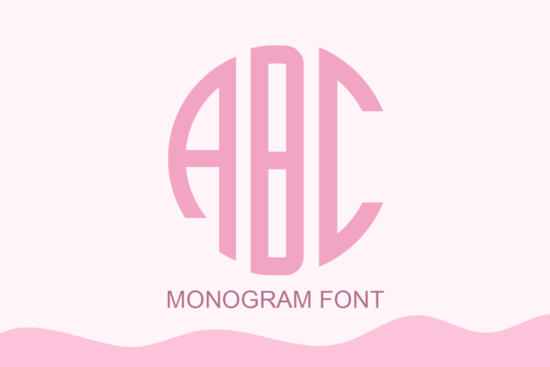
Looking for a monogram font that works across different crafting and design projects? The Monogram font from Creative Fabrica is a display typeface built specifically for projects where personalization matters think t-shirts, logos, labels, stickers, embroidery, and vinyl work. It has a clean, stylish look that makes initials and short text stand out without feeling overdone.
Whether you sell on Etsy, run a small print-on-demand shop, or just enjoy crafting at home, this font gives you flexibility for a wide range of creative needs.
What Makes This Monogram Font Work for Crafters?
The design behind this font focuses on readability and visual appeal at display sizes. Monogram letters need to feel balanced and intentional not cramped or overly decorative. This typeface nails that middle ground. The letterforms are bold enough to hold up on physical products like embroidery patches, vinyl decals, and custom jewelry, while still looking polished on digital designs.
A few things that stand out:
- Versatile letter shapes Works for single initials, two-letter combos, and three-letter monograms
- Clean spacing Letters sit well next to each other without manual kerning headaches
- Display-ready weight Bold enough for t-shirt graphics and logo mockups
- Cut-friendly outlines Plays nicely with Cricut and Silhouette machines for vinyl and sticker projects
What Can You Actually Use a Monogram Font For?
This is where it gets fun. Monogram fonts are one of those typefaces that show up everywhere once you start looking. Here are some real-world uses that crafters and sellers rely on:
- Personalized t-shirts and apparel Custom wedding party shirts, family reunion gear, school spirit wear
- Logo design Especially for boutique brands, salons, and small businesses that want an elegant touch
- Labels and packaging Soap labels, candle branding, gift tags
- Stickers and decals Laptop stickers, car window decals, planner stickers
- Embroidery and stitching Towels, robes, tote bags, baby blankets
- Jewelry and accessories Engraved necklaces, earrings, keychains
- Digital products Invitation templates, social media graphics, website headers
If you run a print-on-demand business, pairing a monogram font with trending niches like bridal parties or teacher gifts can create best-selling product listings with minimal design effort.
How Does It Compare to Other Display Fonts?
Every project has different needs. The Monogram font works best when you want something classic and personal. But depending on the vibe you're going for, you might also want to explore other display fonts on Creative Fabrica.
For example, if you're working on holiday-themed crafts, the Simple Grinches font brings a playful seasonal feel that's perfect for Christmas shirts and ornaments. On the other hand, if you need something with more retro weight and character, Chunky Retro font gives you that bold vintage look for posters and packaging.
For more elegant and editorial projects, Arvoire Leonard font offers a sophisticated serif style that pairs well with beauty and fashion branding. And if you love the worn, nostalgic aesthetic, Retro Vintage font captures that old-school charm for labels and signage.
For something softer and more handwritten, the Reminder font works nicely for greeting cards, planner designs, and feminine branding projects.
The good news is that display fonts like these can complement each other. You might use the Monogram font for initials and pair it with a different display typeface for supporting text in your design.
Tips for Getting the Most Out of This Font
Here are a few practical tips if you decide to use this font for your next project:
- Keep text short. Monogram fonts are designed for initials and short words. Full sentences in a display font can be hard to read.
- Test at actual size. Before cutting vinyl or sending embroidery files, preview your design at the size it will appear on the final product.
- Pair with a simple secondary font. Use a clean sans-serif or script font alongside the monogram for names, dates, or taglines.
- Save as outlines for cutting machines. When exporting for Cricut or Silhouette, convert text to outlines or shapes so the font renders correctly on the machine.
Is This Font Right for You?
If you design personalized products whether for your own shop, for clients, or just for fun a solid monogram font is a must-have in your toolkit. This particular font keeps things clean, stylish, and easy to work with across both digital and physical products.